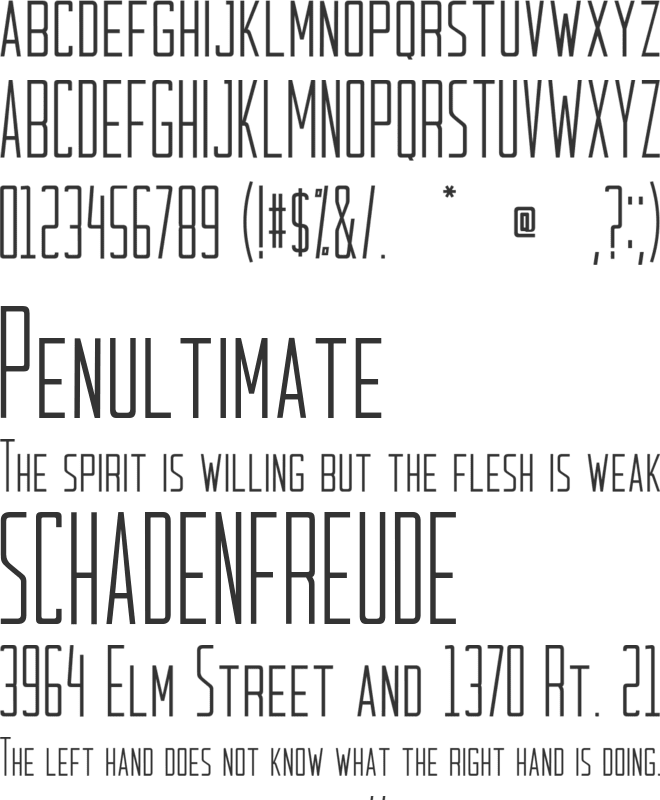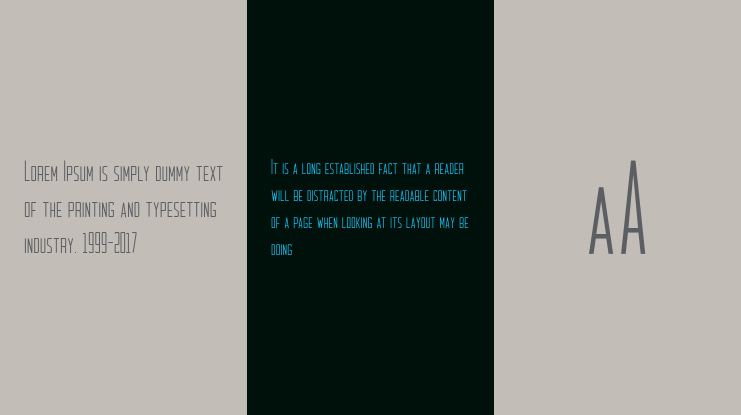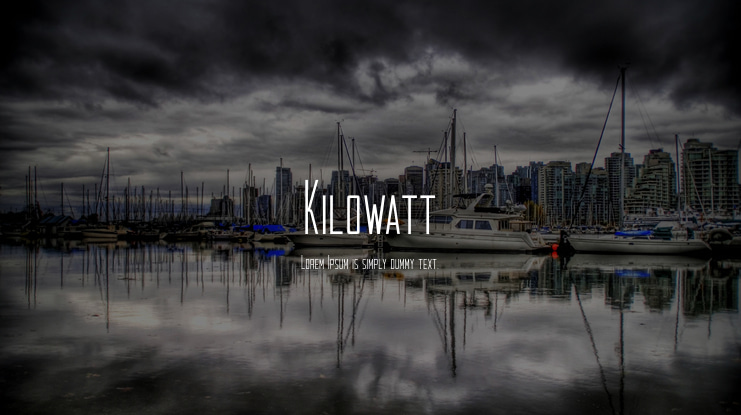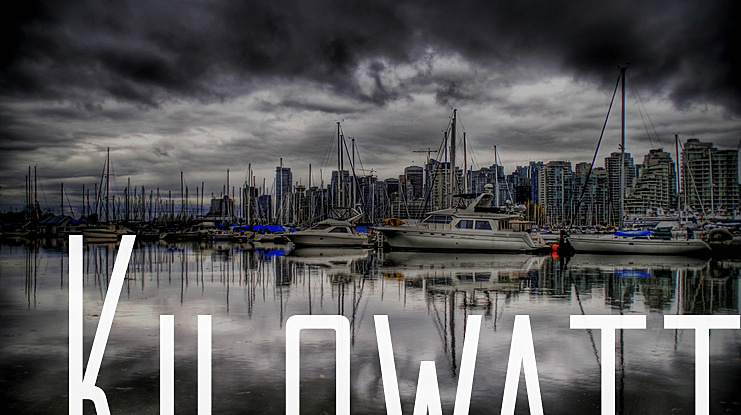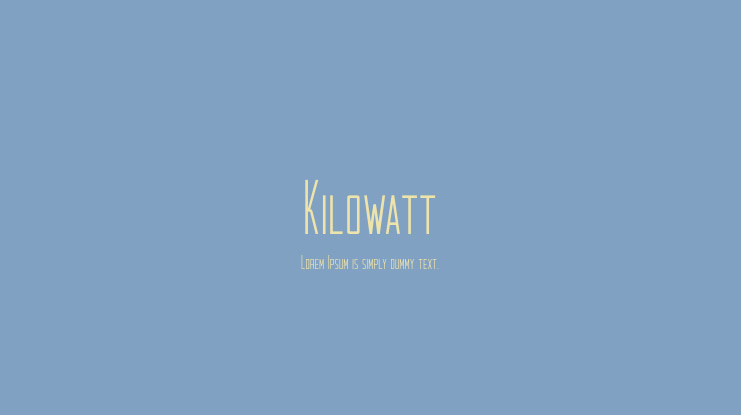
Kilowatt Font
This font is a thin typeface that is strong, geometric, and confident. Having a regular style and a compressed width adds to the aesthetic of this font. It has a squared off look with thin lines and slightly rounded corners. Great for posters, titles, advertising & much more.